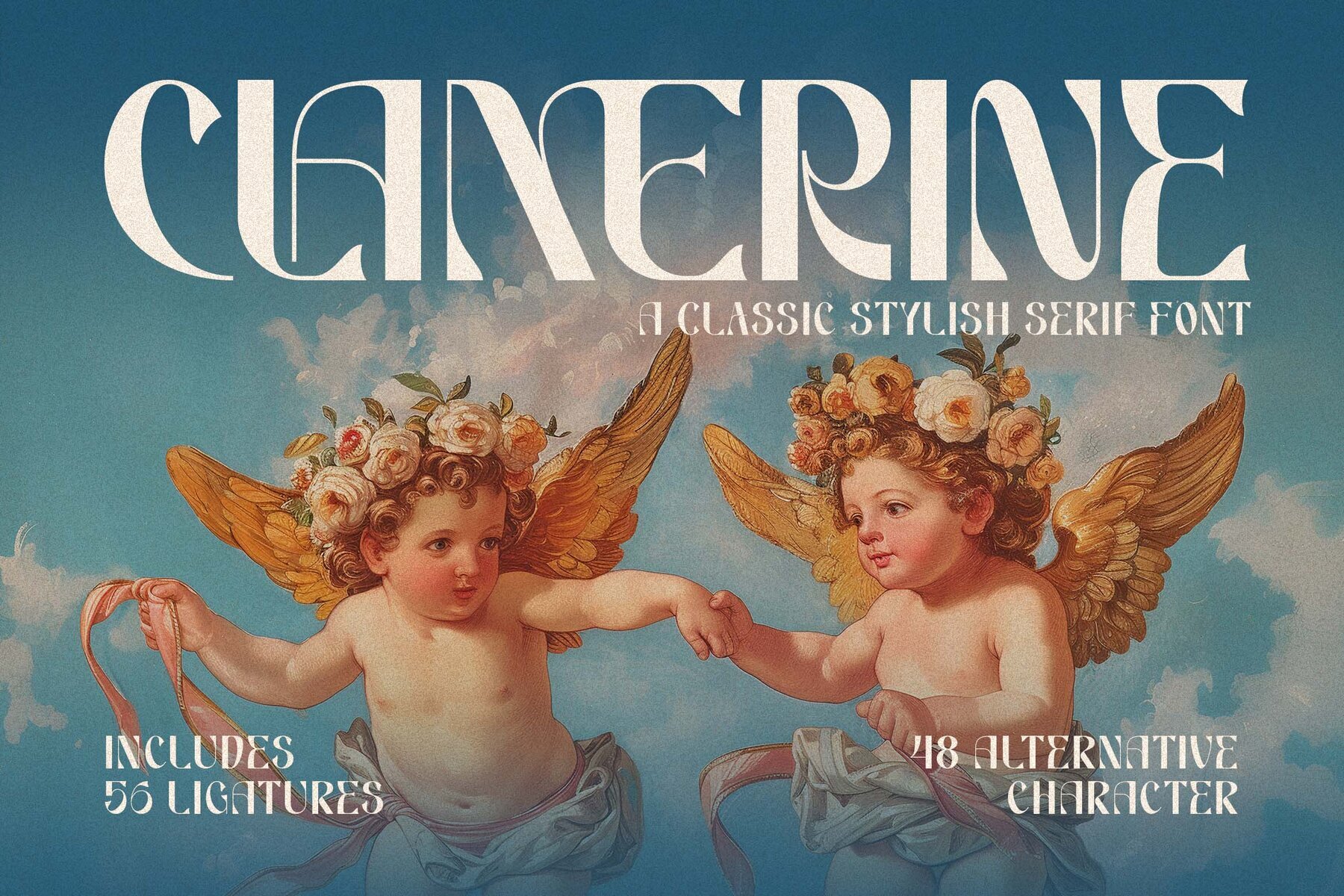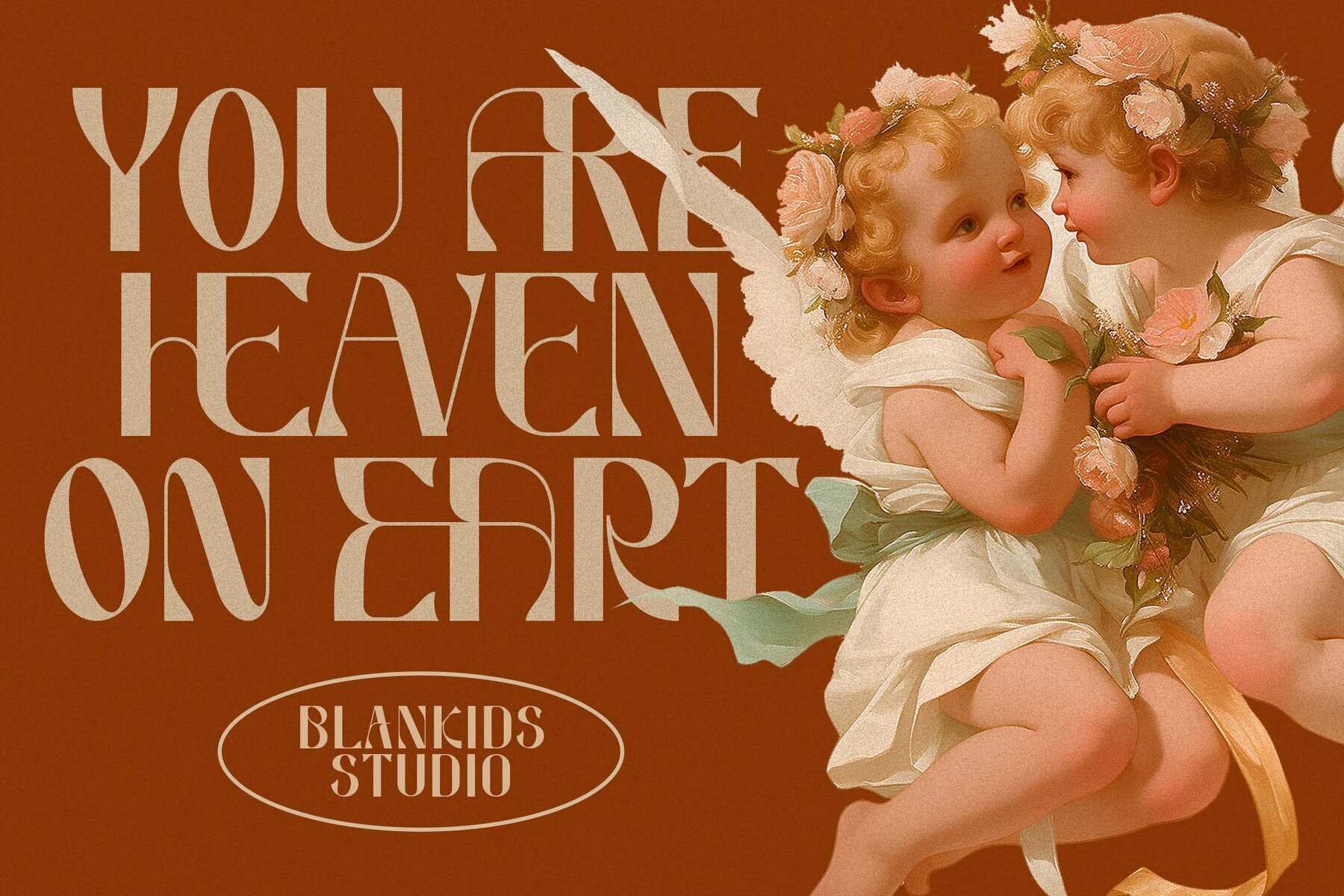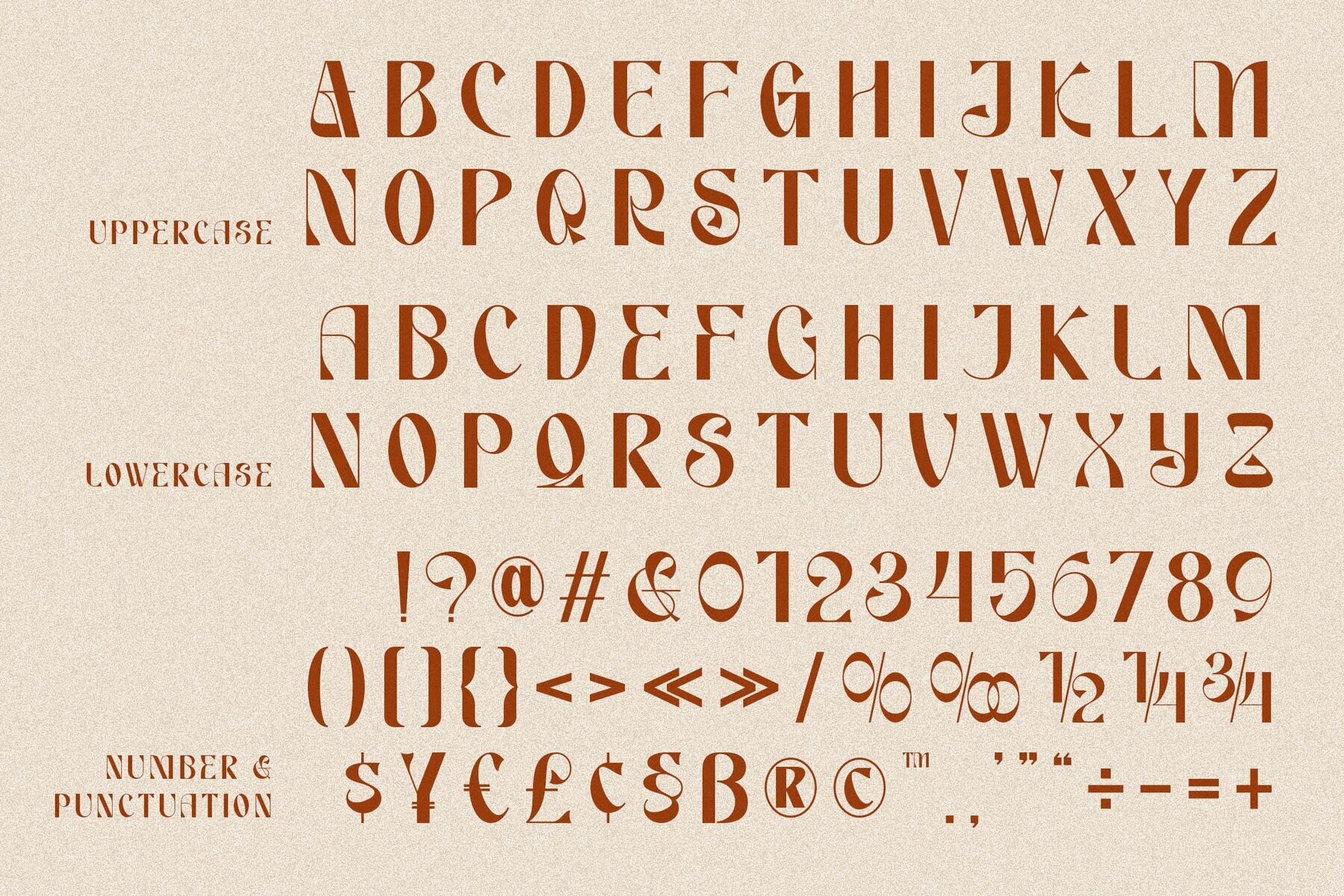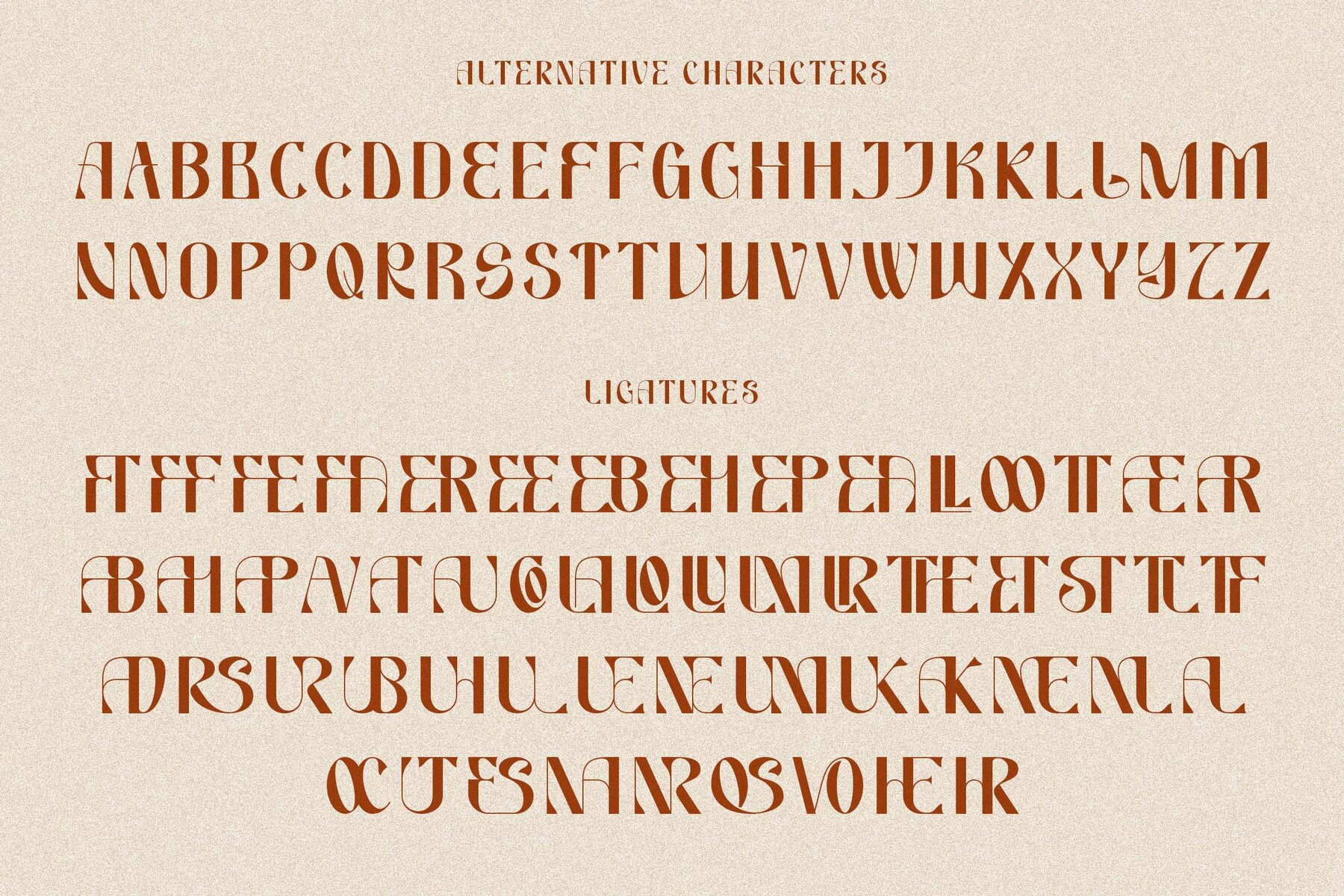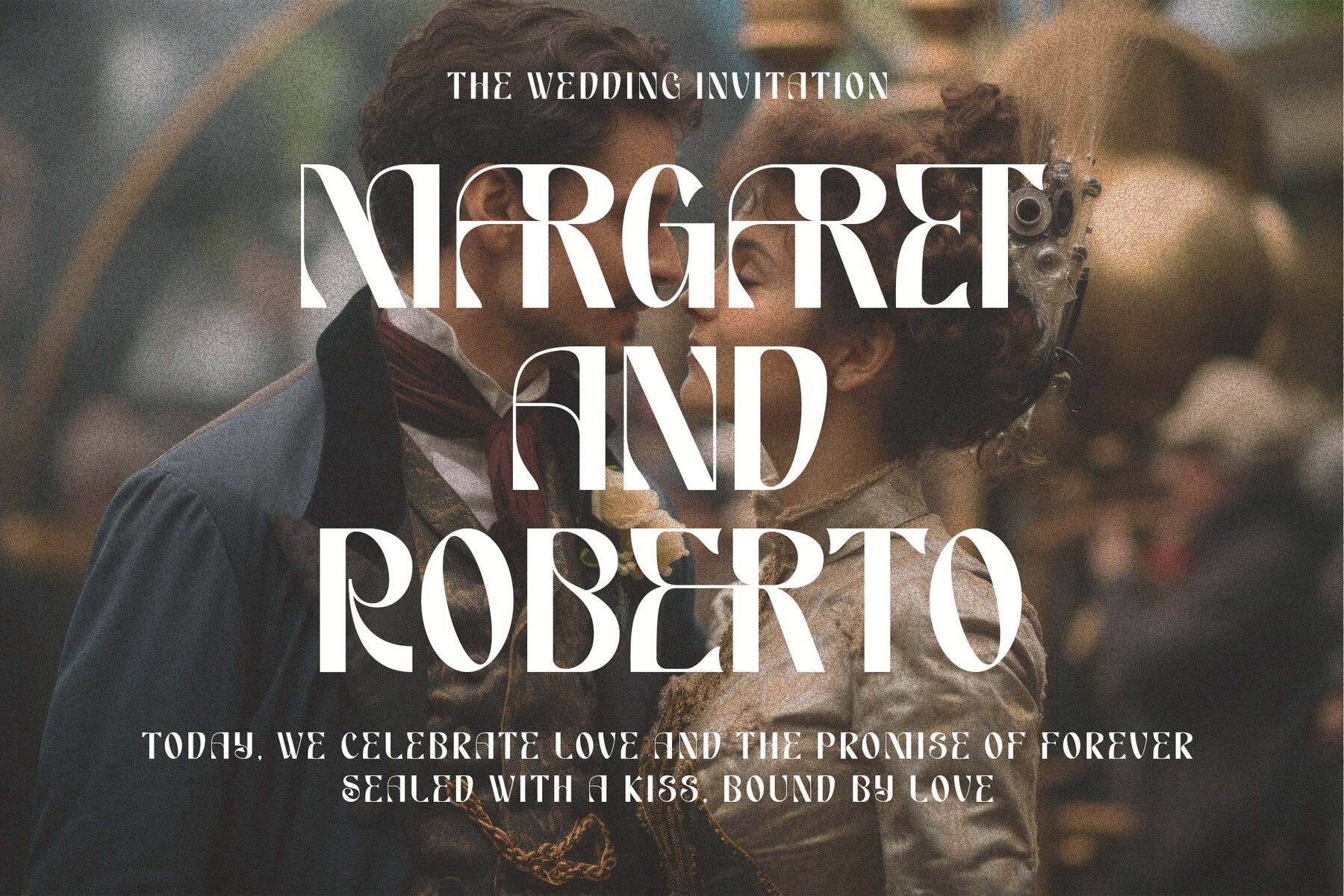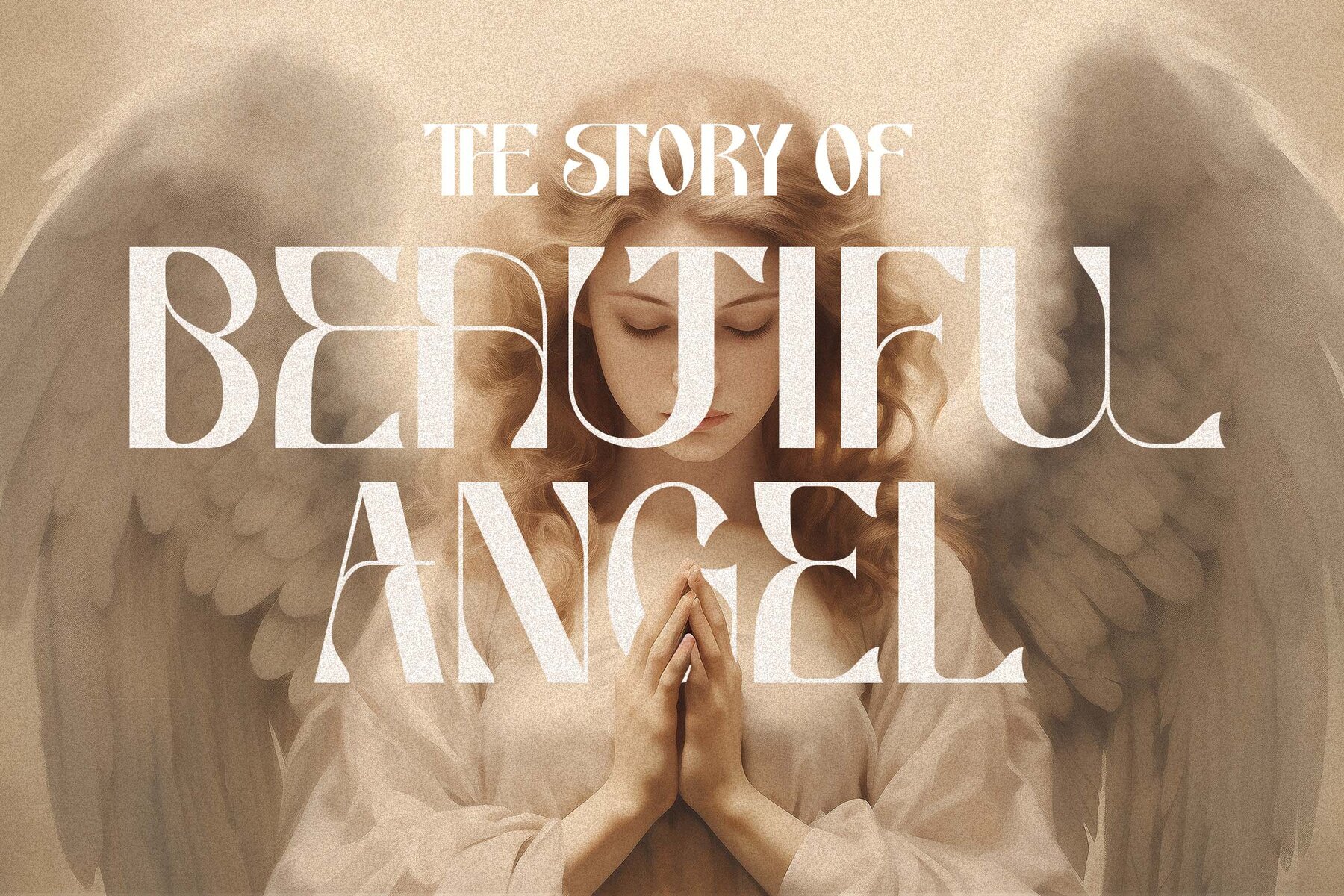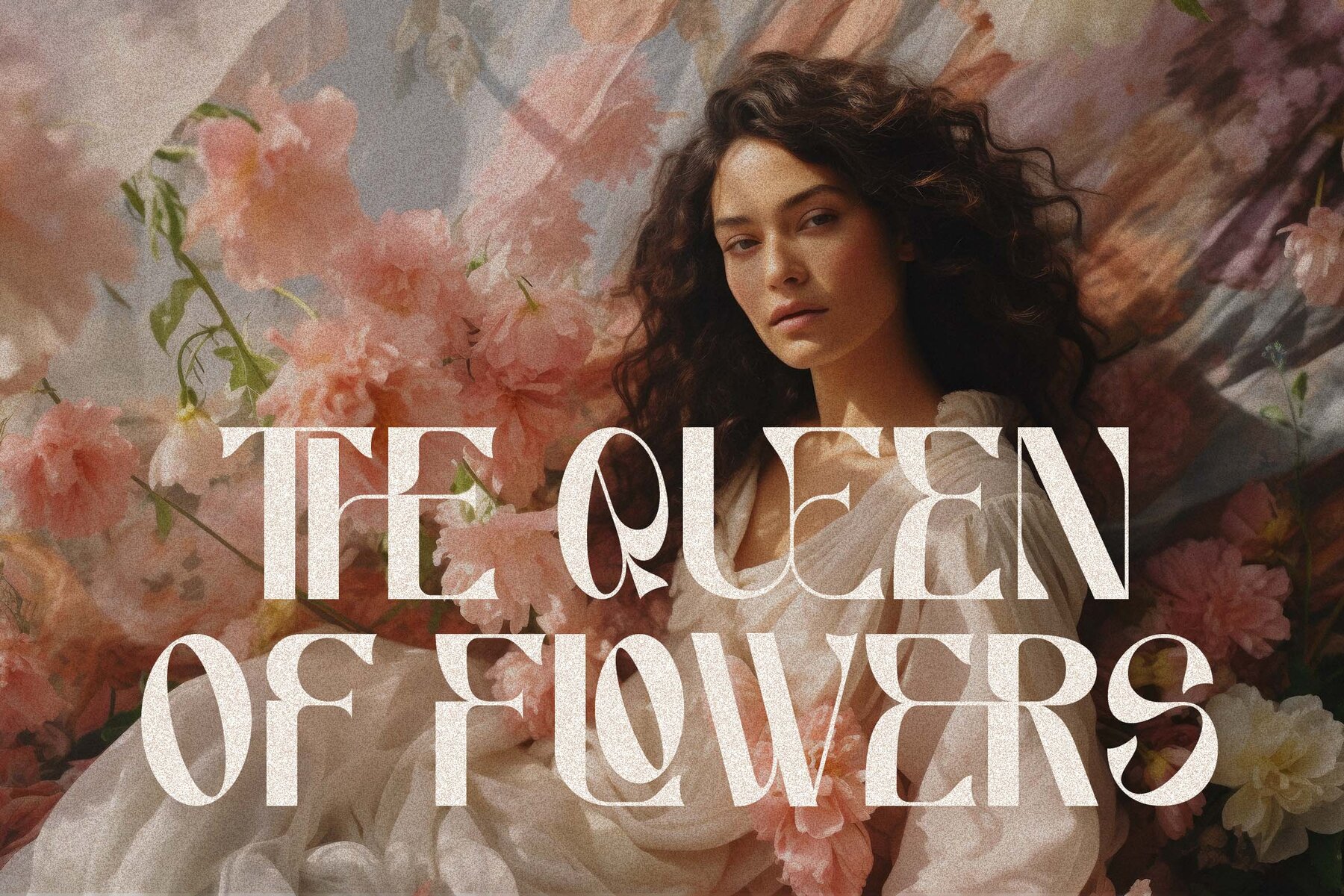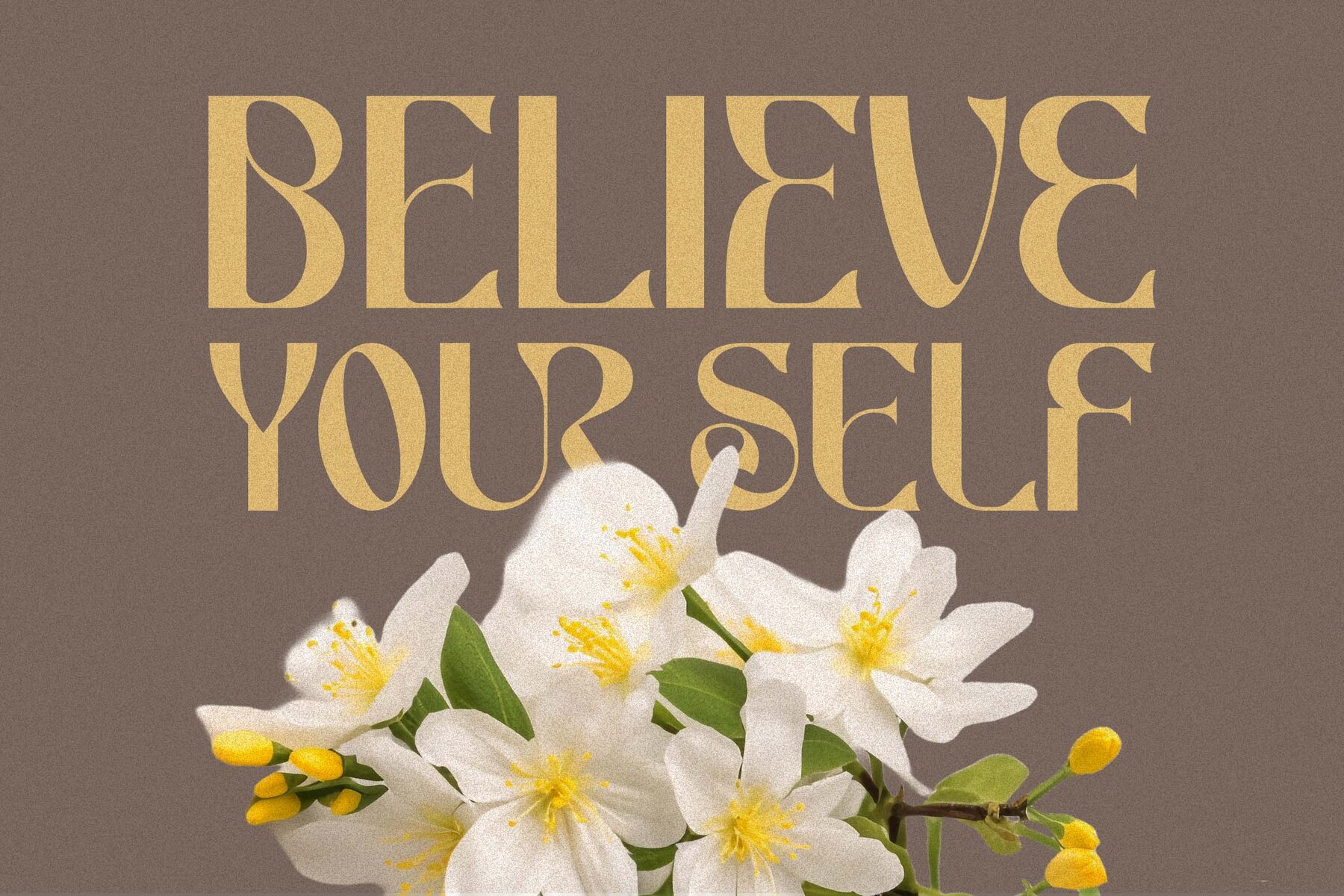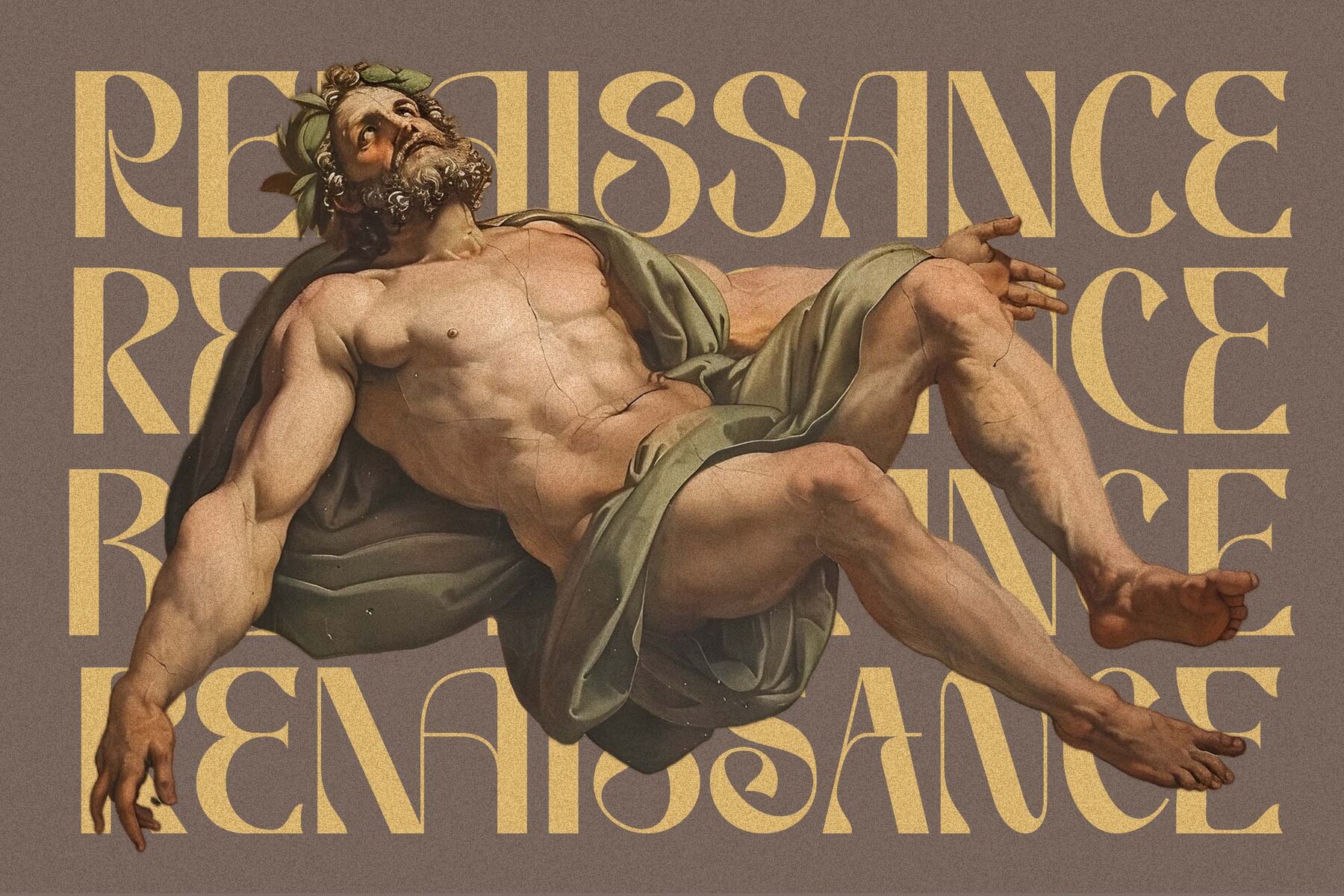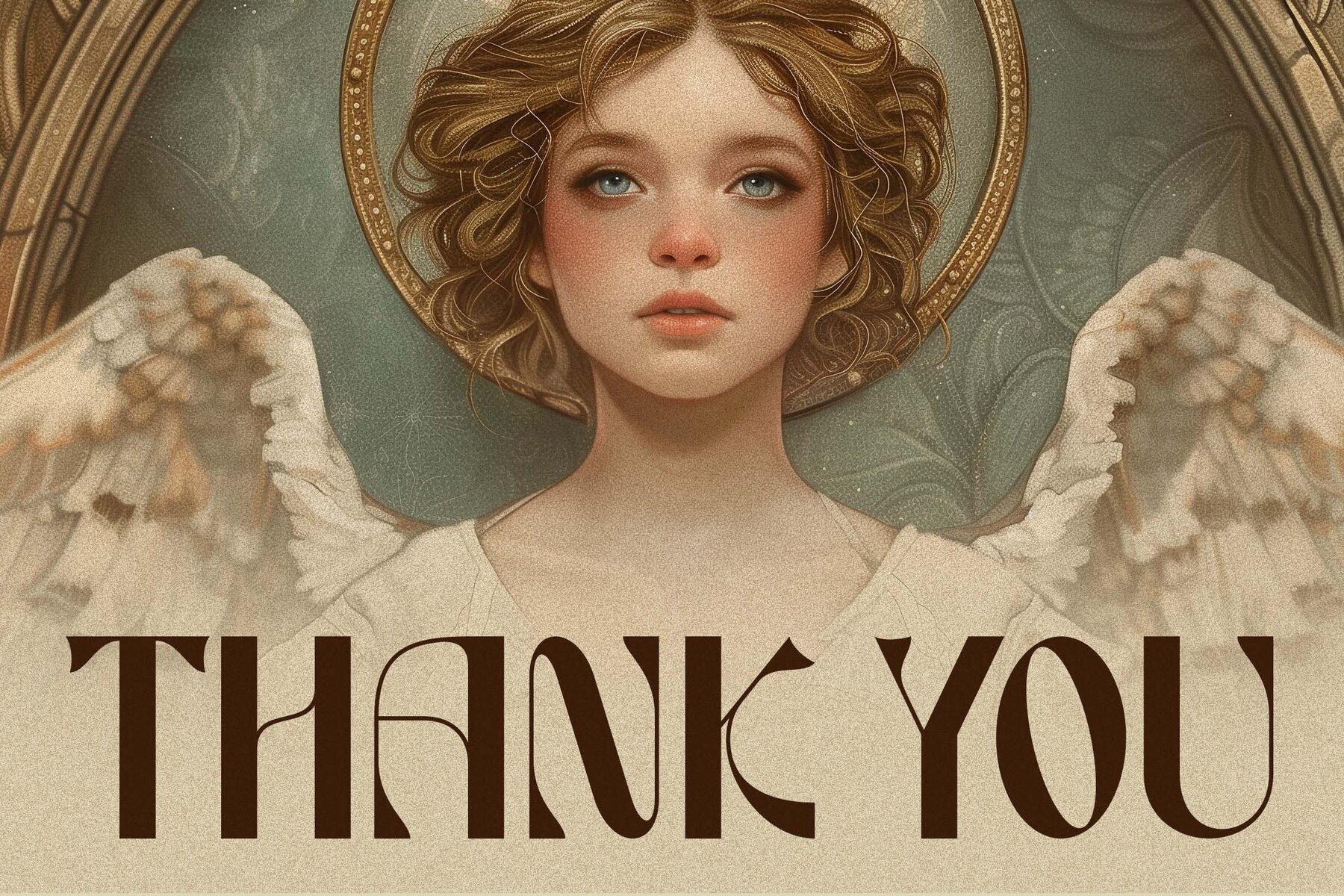
Clamerine Font
Clamerine Regular
Clamerine is a sophisticated addition to any designer's toolbox. This stylish font from Blankids Studio is perfectly suited for projects that require a timeless touch, like logotypes, watermarks, and product packaging. Its classic design brings a touch of elegance to any creative endeavor. Clamerine is compatible with a variety of graphic software, including Canva, Adobe Illustrator, and Corel Draw, utilizing OpenType features for versatility.Clamerine: Classic Elegance in Typography